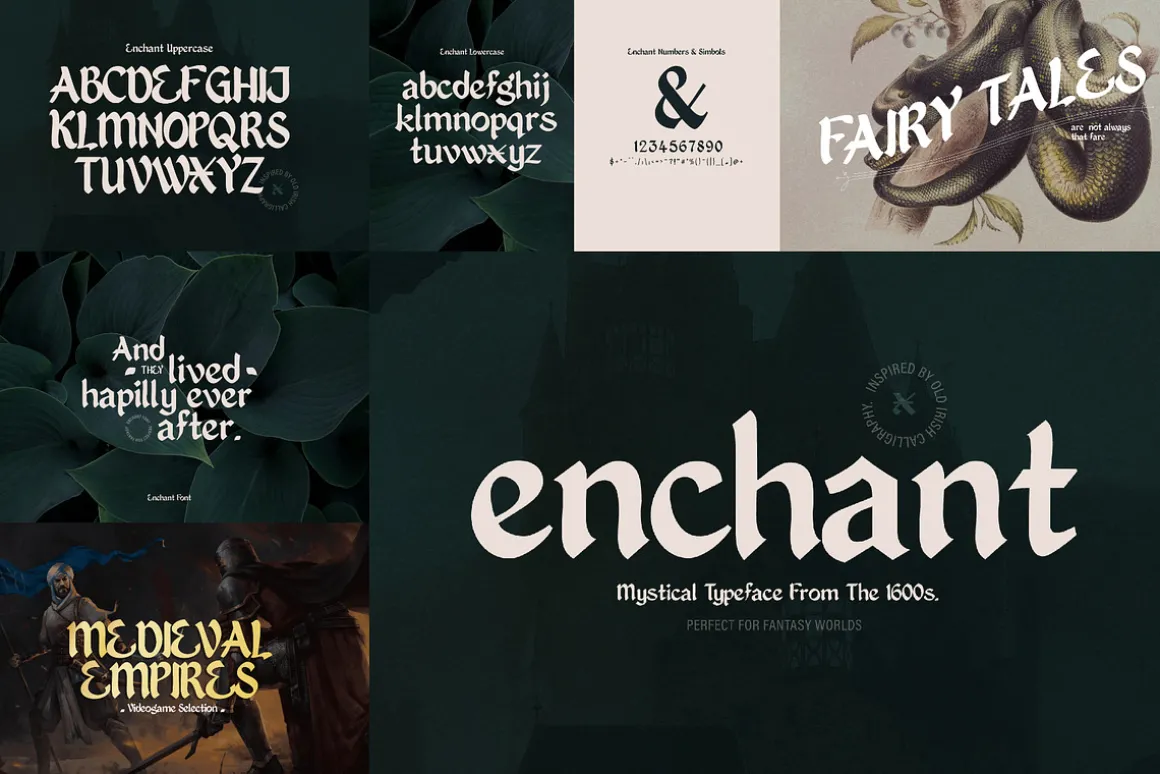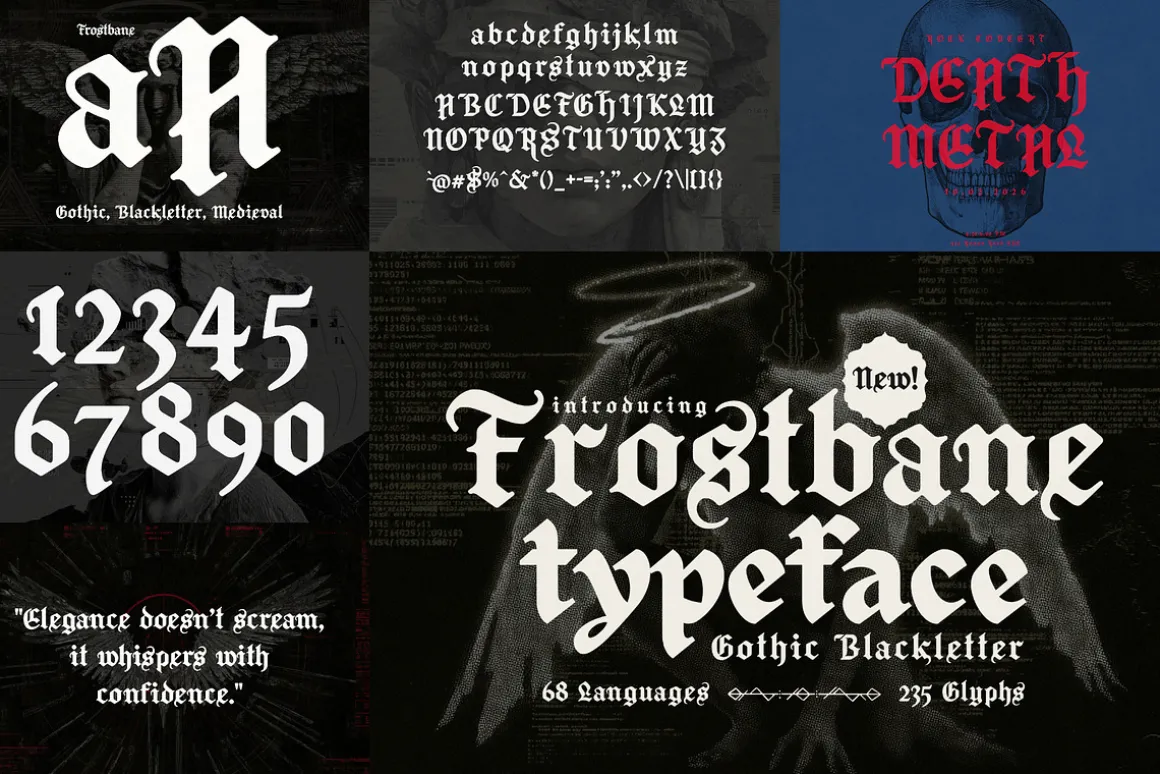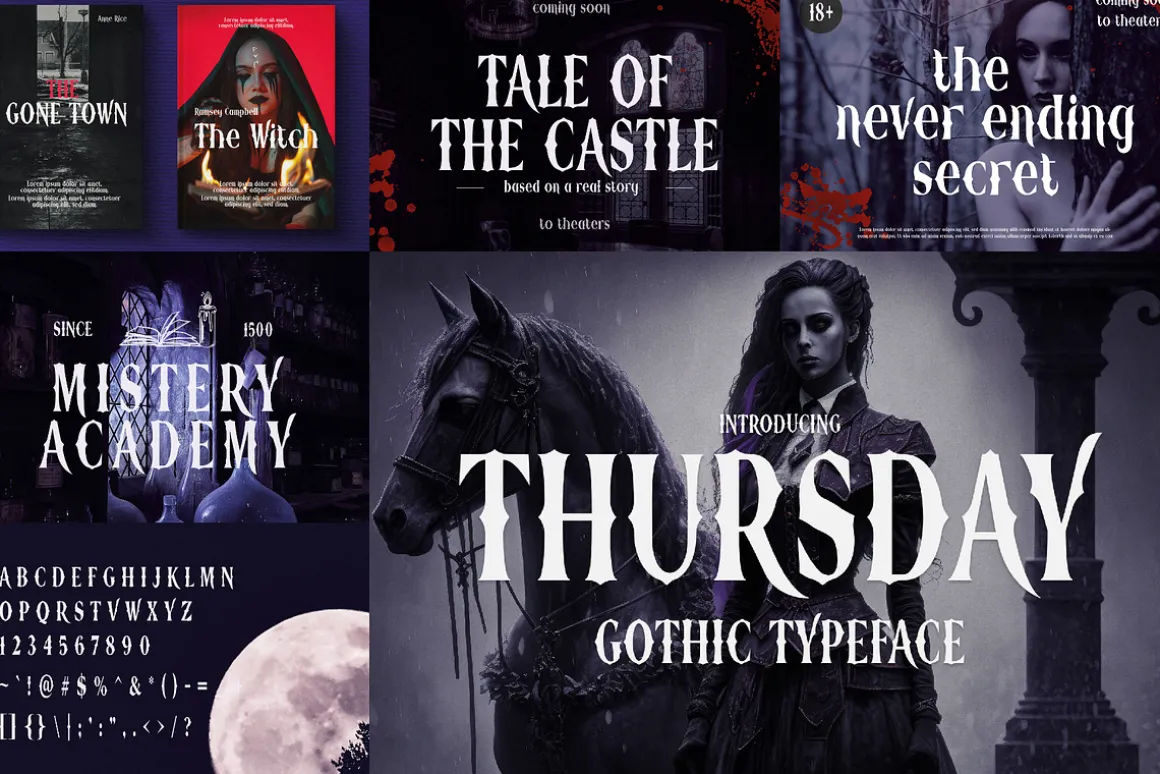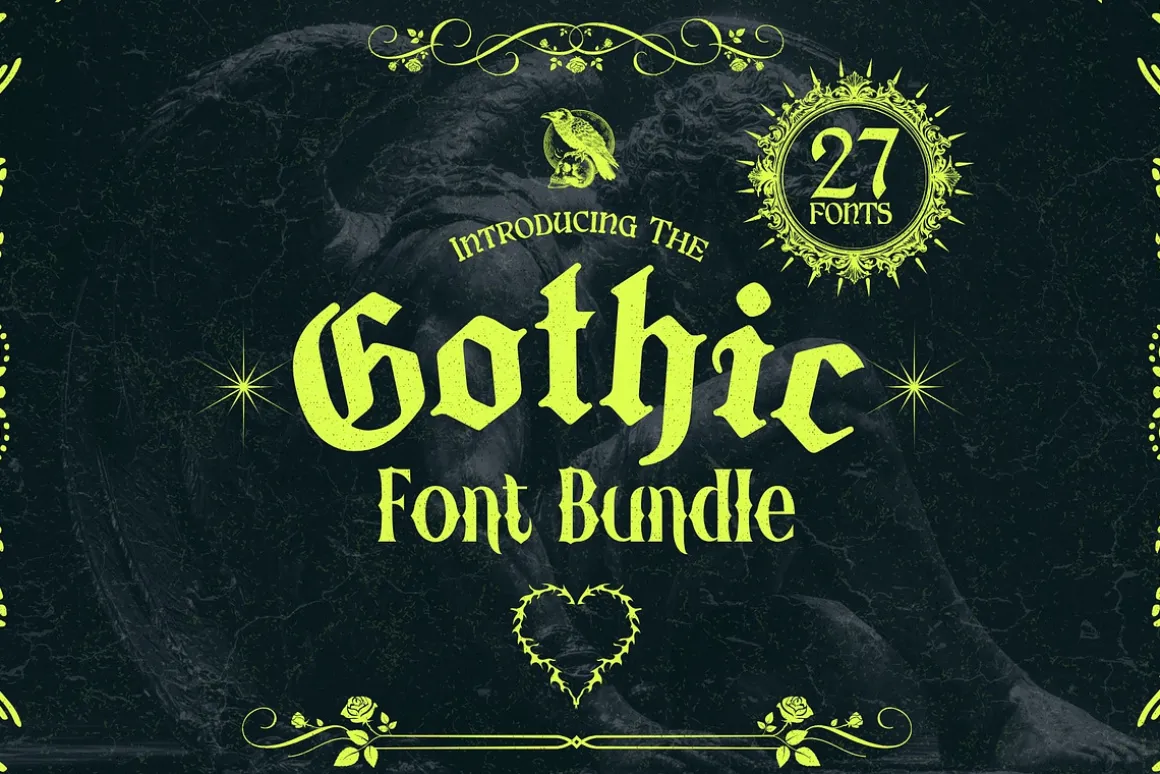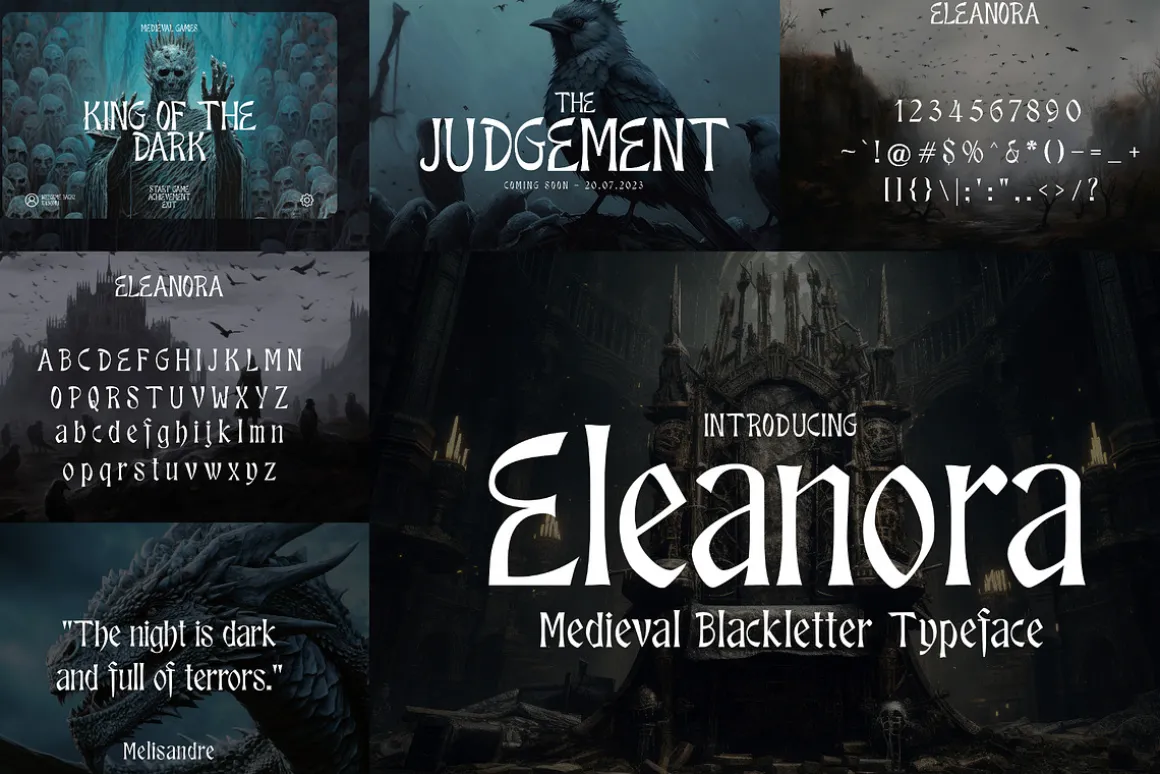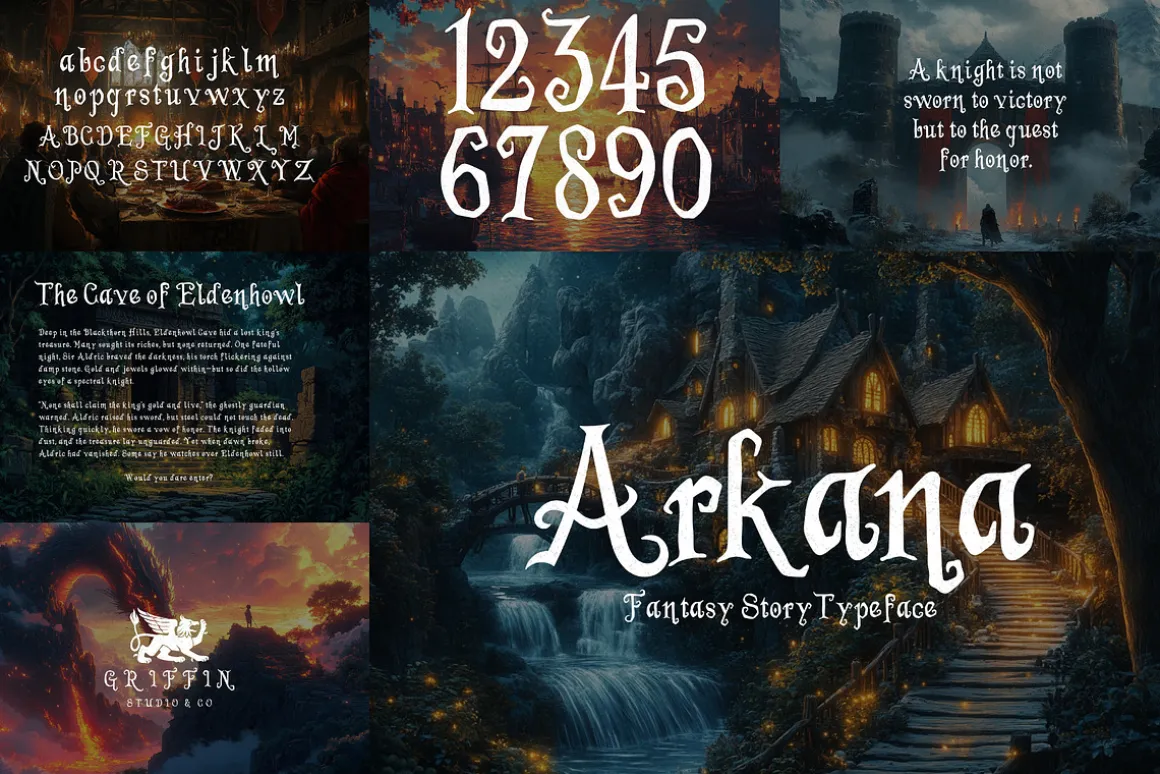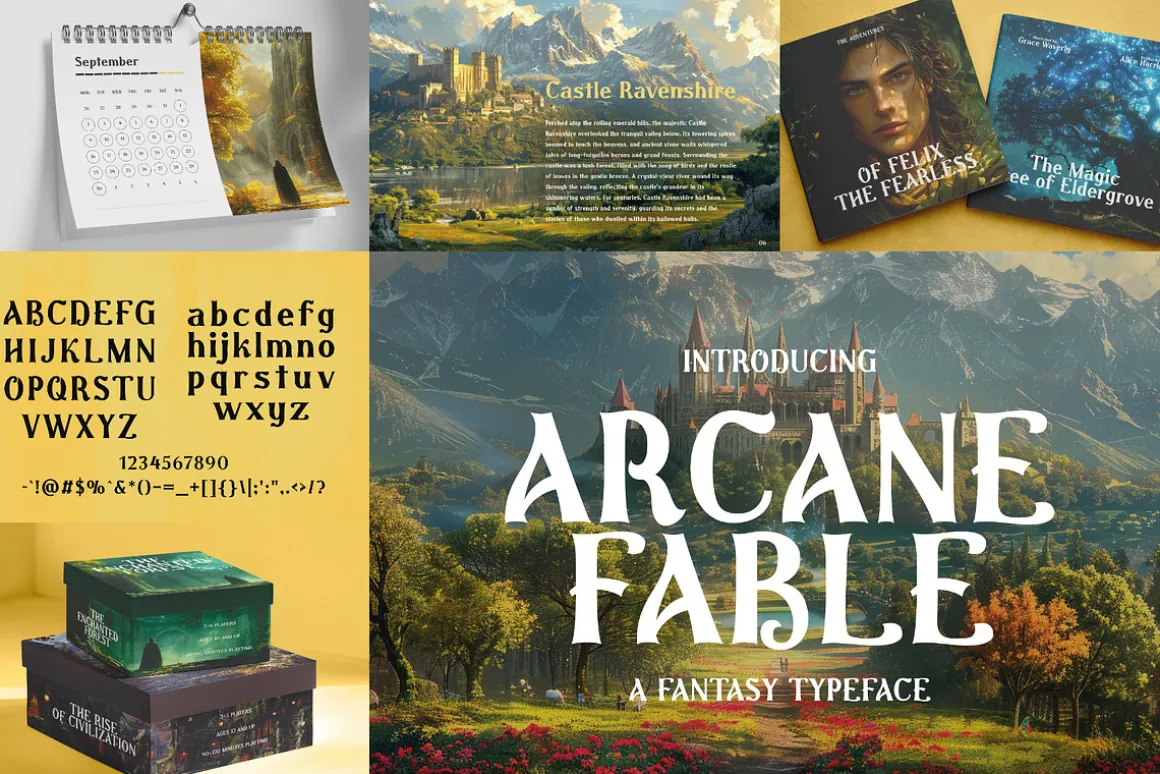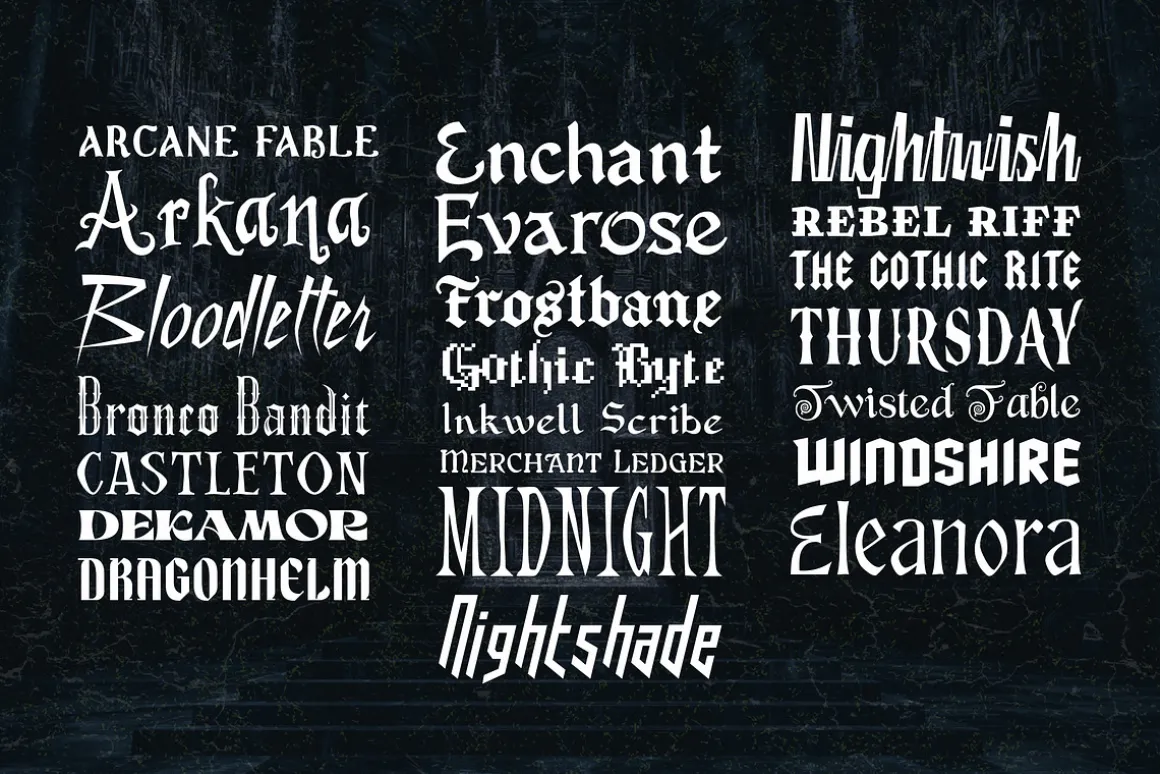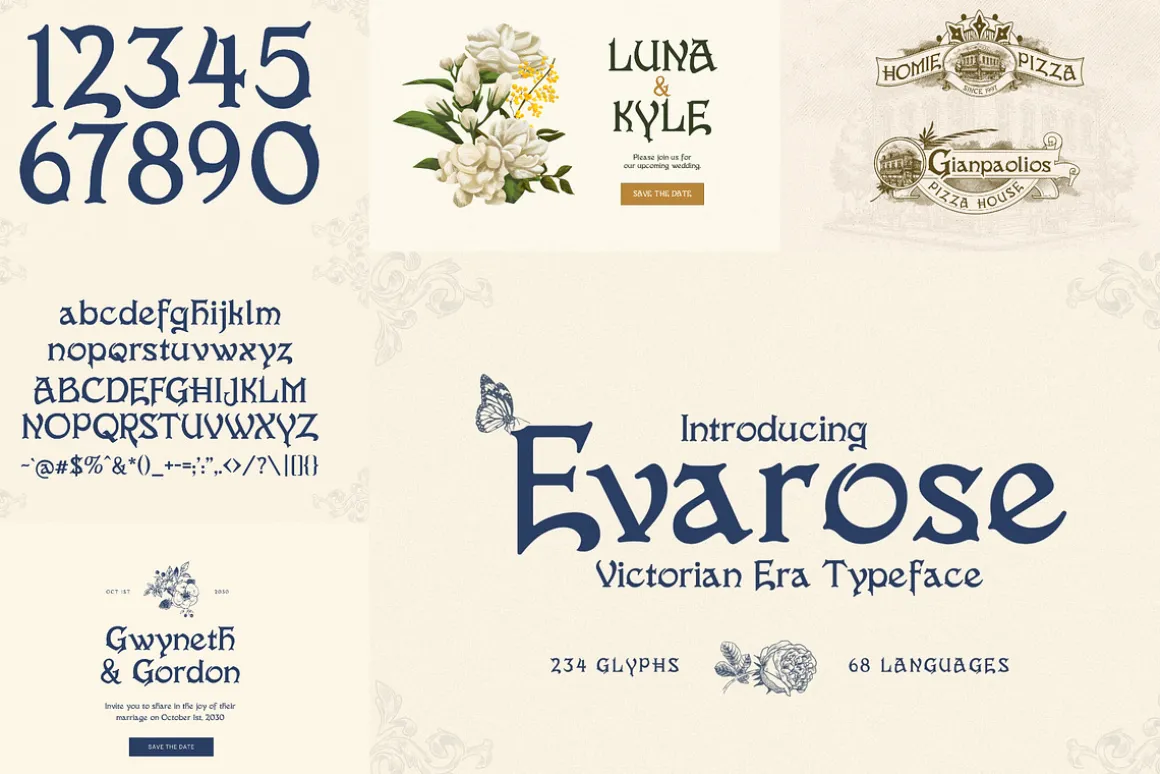
Step into the shadows with the Epic Gothic Font Bundle, a hauntingly beautiful collection of 27 gothic-inspired typefaces crafted to bring drama, mystery, and timeless allure to your designs. Whether you’re working on dark fantasy book covers, black metal band logos, occult branding, eerie posters, or Halloween packaging, this bundle is your ultimate creative weapon.
Each font in this bundle is infused with gothic soul, from sharp blackletter curves to ancient medieval calligraphy and occult-inspired elegance. These fonts are bold, unapologetic, and drenched in gothic atmosphere, perfect for evoking emotion, storytelling, and power in your work.
27 Unique Fonts – All gothic, all captivating.
Perfect for branding, album art, tattoos, posters, clothing lines, books, and more.
A mix of vintage, modern, medieval, and ornamental gothic styles.
Supports multilingual glyphs, alternates, and detailed craftsmanship.
Handpicked for designers who dare to be bold and different.
Whether you’re designing for the arcane, the macabre, or simply want to inject some gothic grandeur into your next project, the Epic Gothic Font Bundle is your one-way ticket to creative darkness.